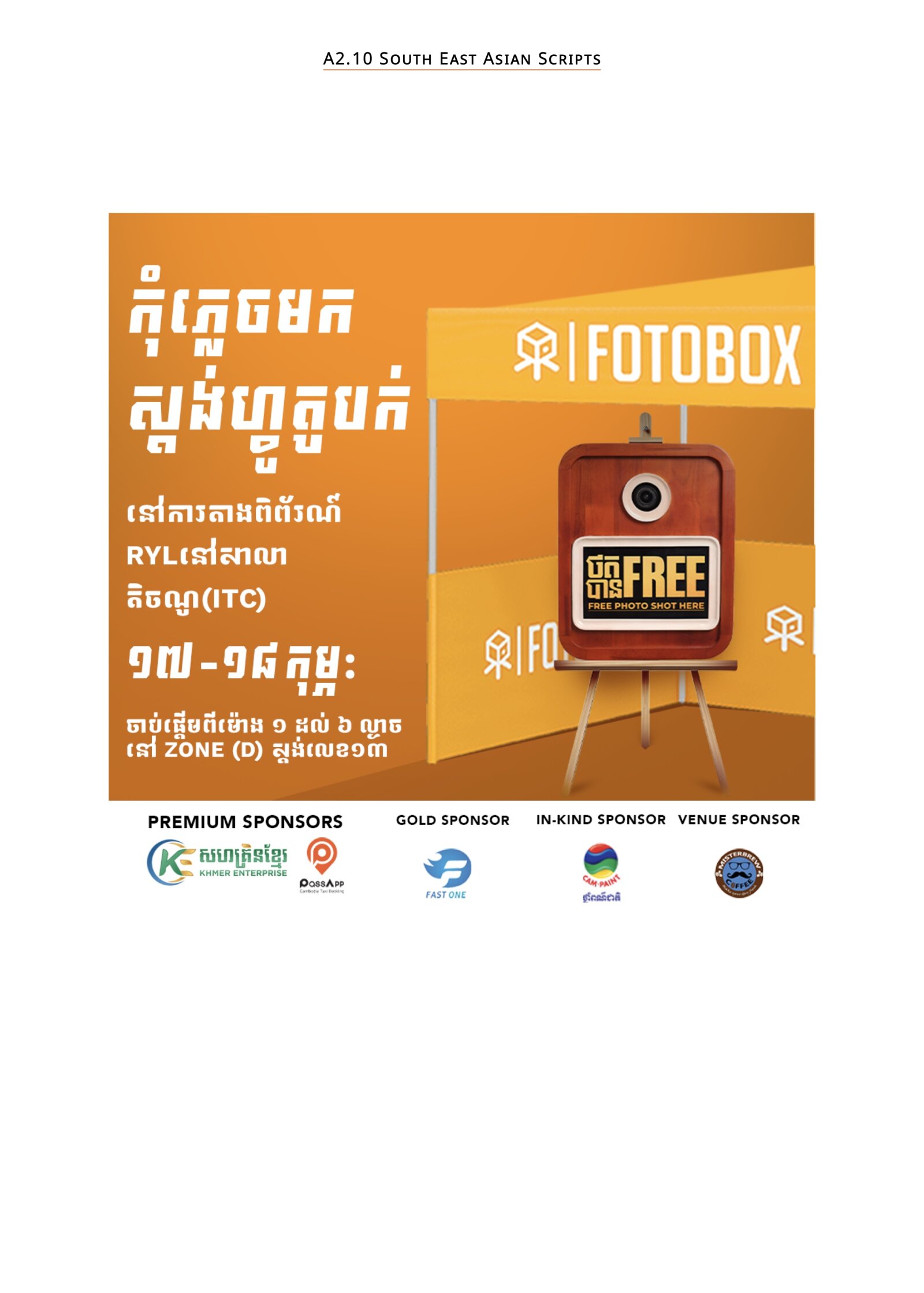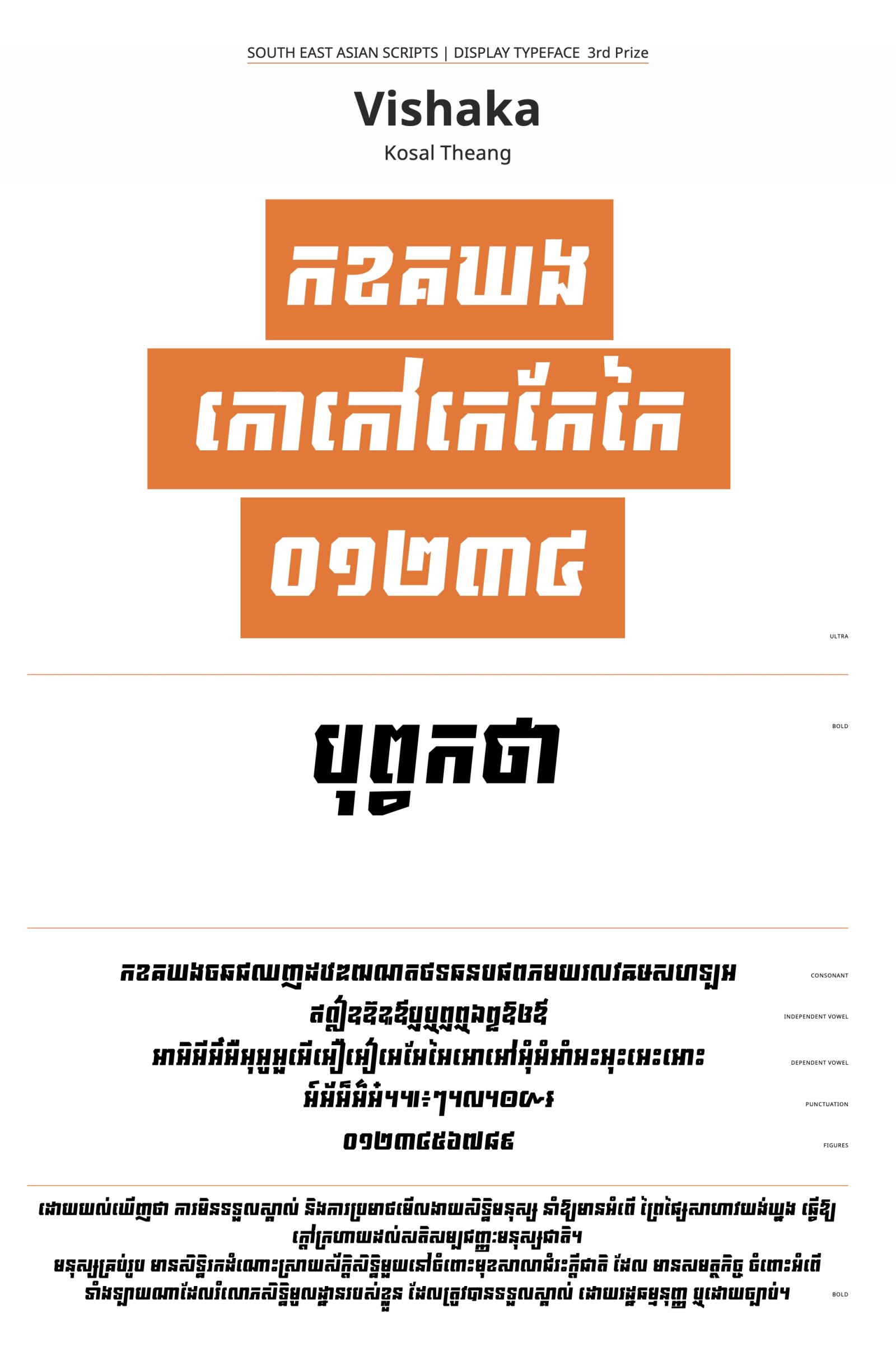
Vishaka
by Kosal Theang
Southeast Asian Scripts
I designed it in terms of Sans Serif letterforms. Build from scratch with sketching on Paper and develop it into the whole script’s letterforms.